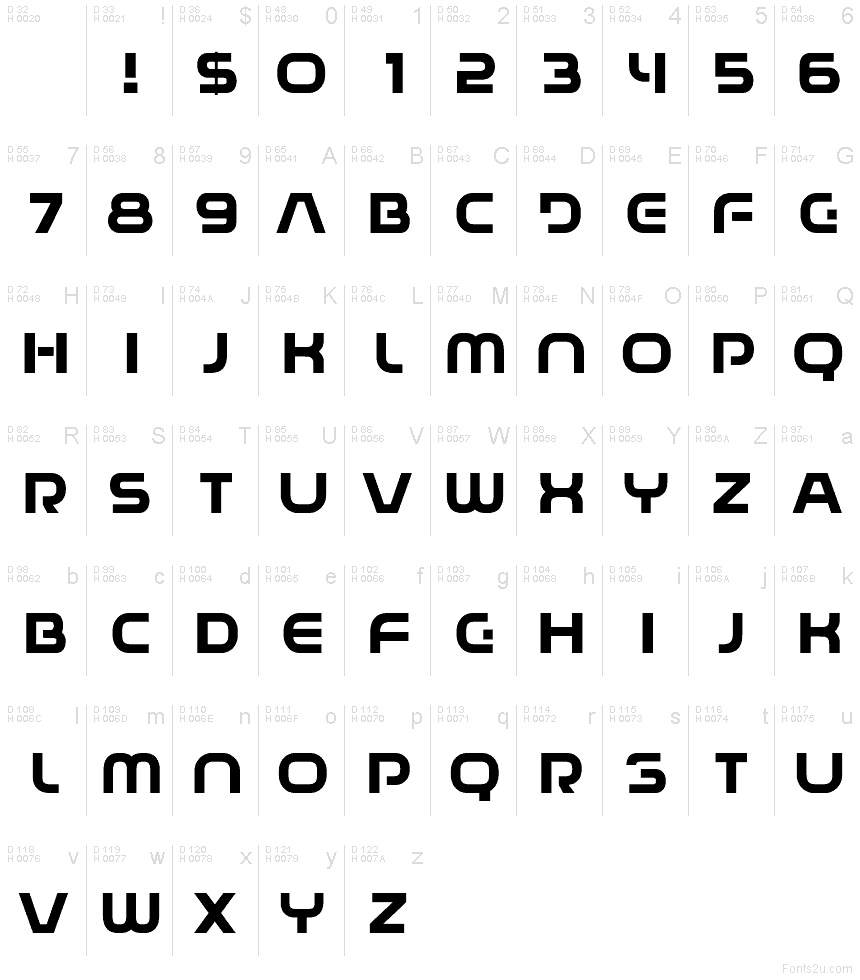
Monoo Logo
Monoo Logo font by Ffeeaarr is a free display font with a futuristic style perfect for all modern projects. The expanded font whose letters meet the edges as they seamlessly connect for singular neat and simple characters maintains an overall pleasant look, introducing readable letters suitable for both printed and digital designs.
The rounded geometric minimalist font presents balanced strokes that go hand in hand every time. So set your trade/shop signs in style, branding and packaging projects, websites with related content, or flyers sharing workshop information. This clean electronic-appearing typeface can also be used for album cover designs or jazz event posters which often feature abstract elements that appear to transcend dimensions.